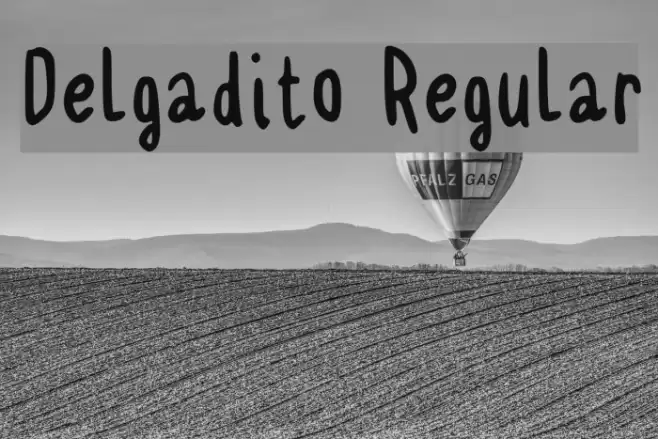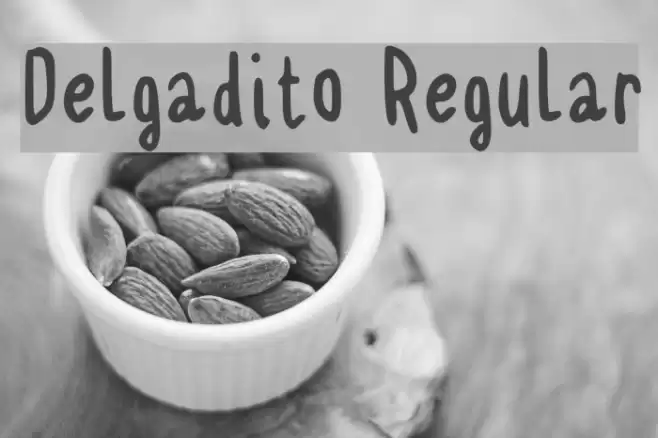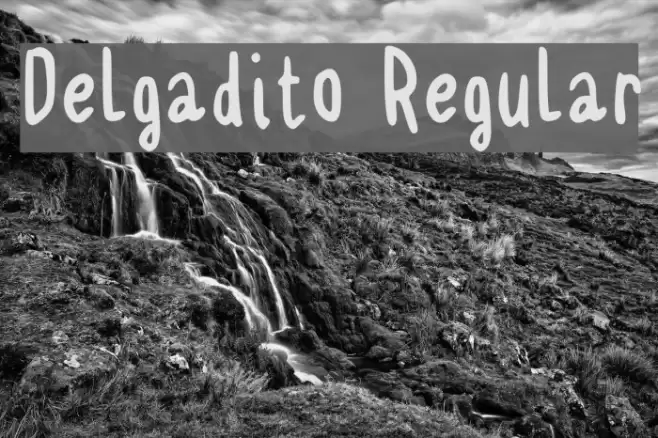
Delgadito Regular Font
Delgadito Regular Description
This font features a playful and informal handwritten style, characterized by its rounded edges and slightly irregular letterforms. The uppercase letters are bold and prominent, while the lowercase letters maintain a consistent flow with a casual appearance. The numerals are clear and easy to read, matching the overall style of the alphabet. Special characters are included, maintaining the same whimsical and approachable aesthetic. This font is ideal for projects that require a friendly and inviting tone, such as children's books, greeting cards, or casual branding materials.
A playful, handwritten font with rounded edges and a casual style from Handwritten fonts.
- Proposed Projects: Children's books, greeting cards, casual branding, playful posters.
- Overall Style: Casual, Playful
- Use Case: Headlines, Logos, Informal Text